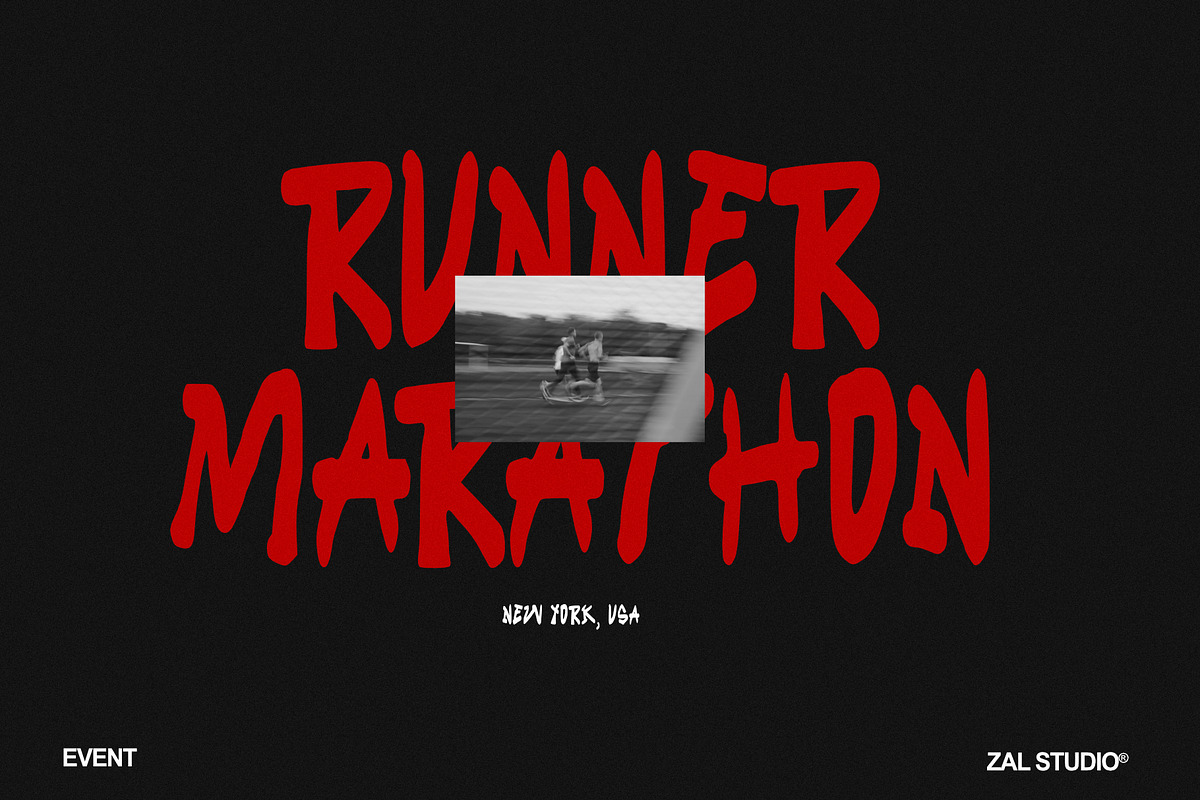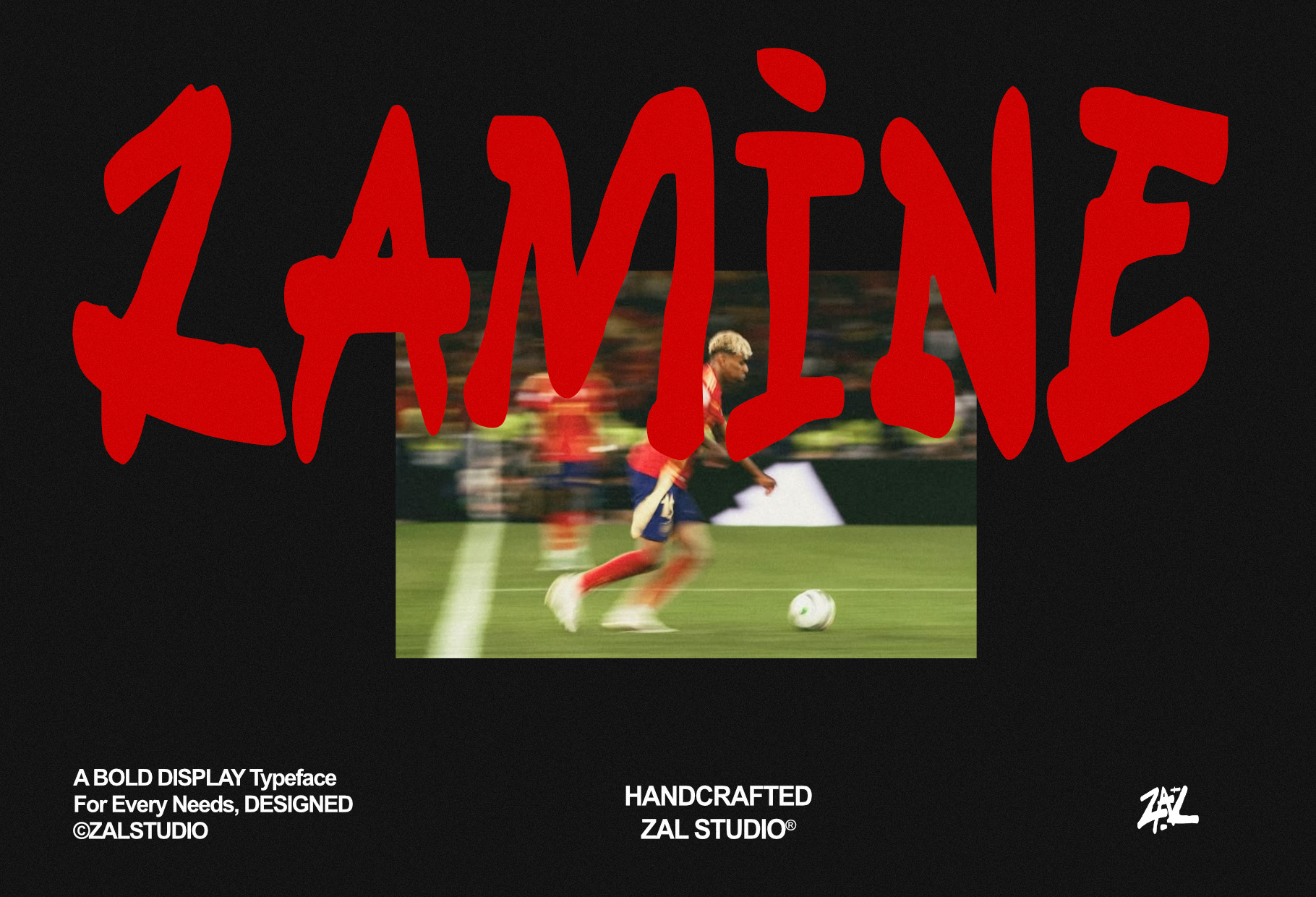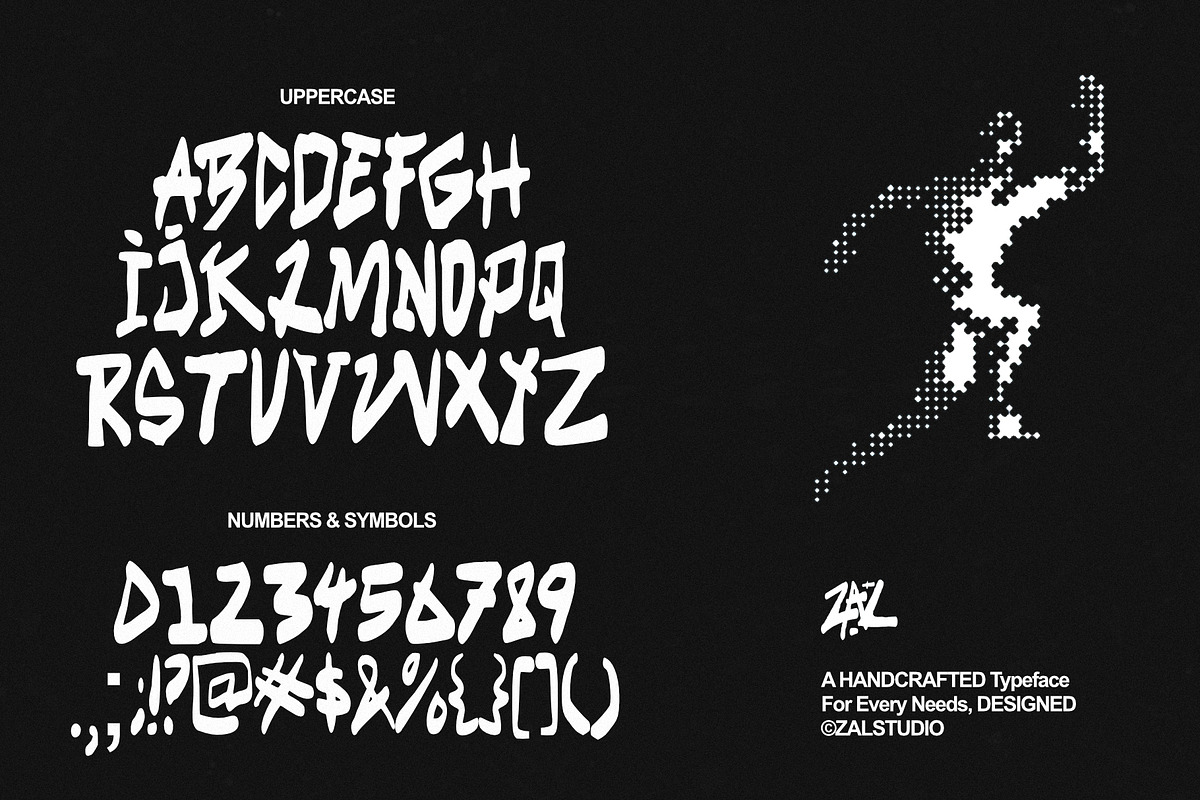
Lamine - Bold Display Typeface
Lamine - Bold Display Typeface is a powerful and modern display font designed to make headlines stand out. With its bold letterforms, strong visual presence, and contemporary character, Lamine is perfect for creating eye-catching typography across branding, posters, logos, packaging, advertising, social media, and digital designs.
Its confident and impactful style works especially well for gaming graphics, esports branding, sports designs, streetwear, music artwork, YouTube thumbnails, movie titles, event posters, merchandise, and promotional campaigns.
Whether you are designing a bold brand identity or creating attention-grabbing headlines, Lamine brings a strong and distinctive personality to every project.
Perfect for: Logo Design, Branding, Posters, Headlines, Advertising, Packaging, Gaming, Esports, Sports Graphics, Streetwear, Music Artwork, Social Media, YouTube, Merchandise, Editorial Design, and Display Typography.